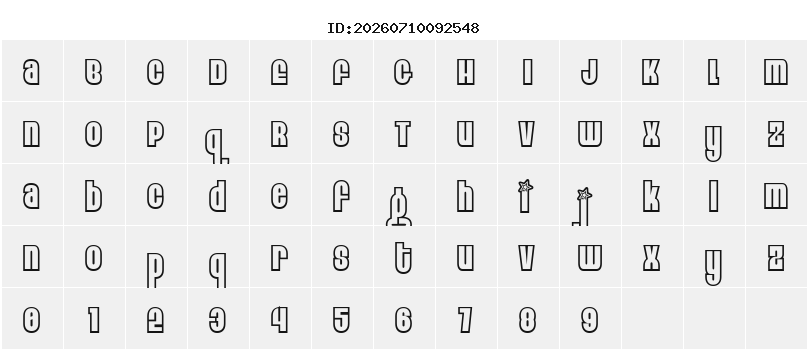
Eight Track program 3 Preview
• Font Name: Eight Track program 3
• Full Font Name: Eight Track program 3
About Eight Track program 3.ttf
Eight Track program 3.ttf is a modern, elegant sans-serif font designed for ultimate readability and visual harmony. Perfect for branding, headlines, web design, and print materials.